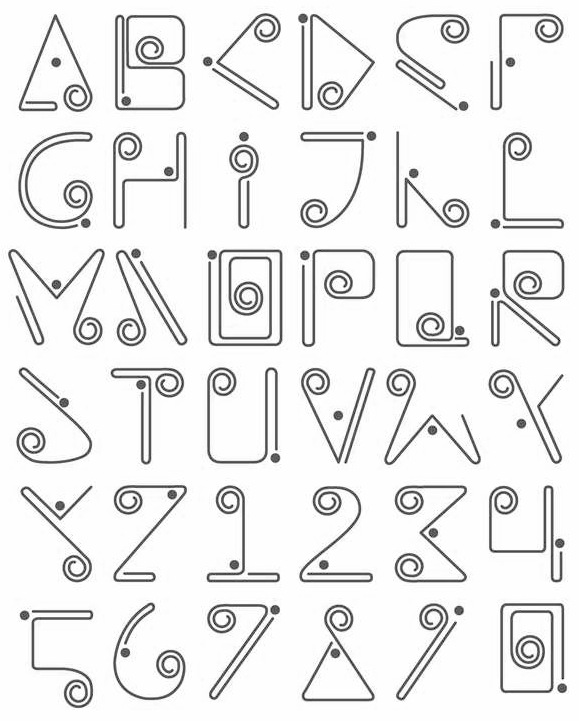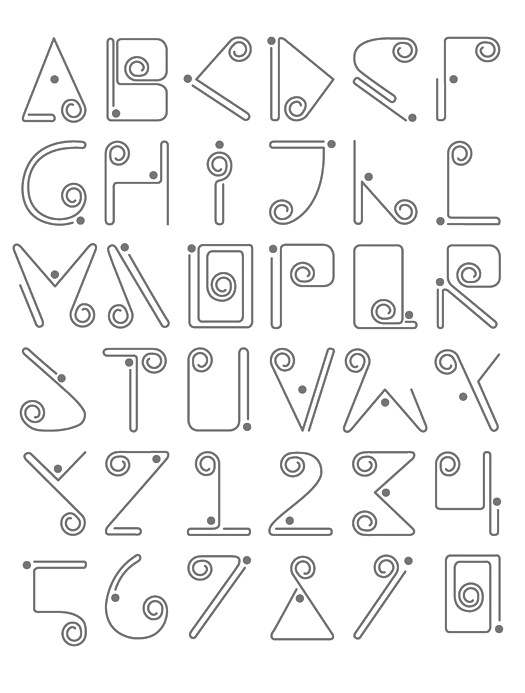
Gustav Rendon |
Illustrator and typographer in Cali, Colombia. Blog. He designed a fresh display caps face called Zinuu (2011) that marries three concepts, the spiral, dots, and paperclips. Idiky (2011) is a hübsch poster face. |